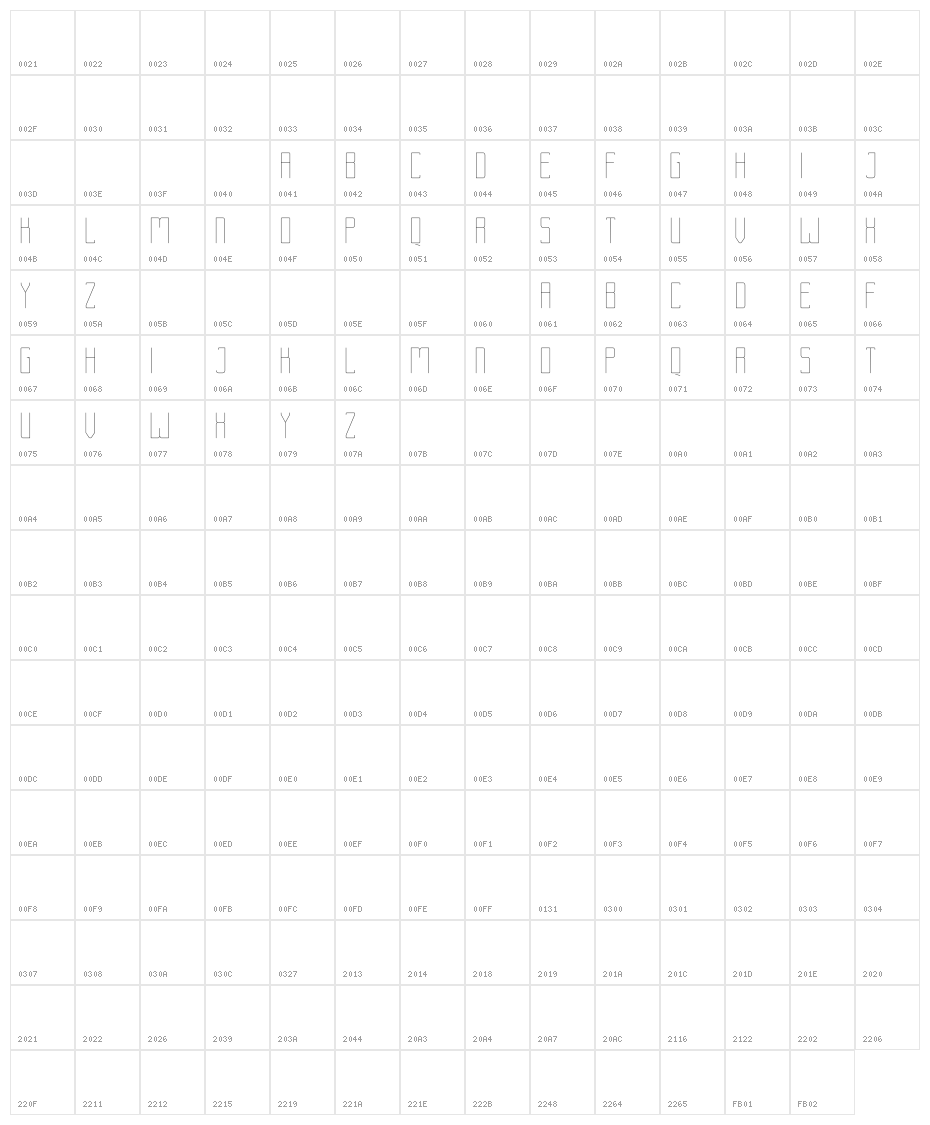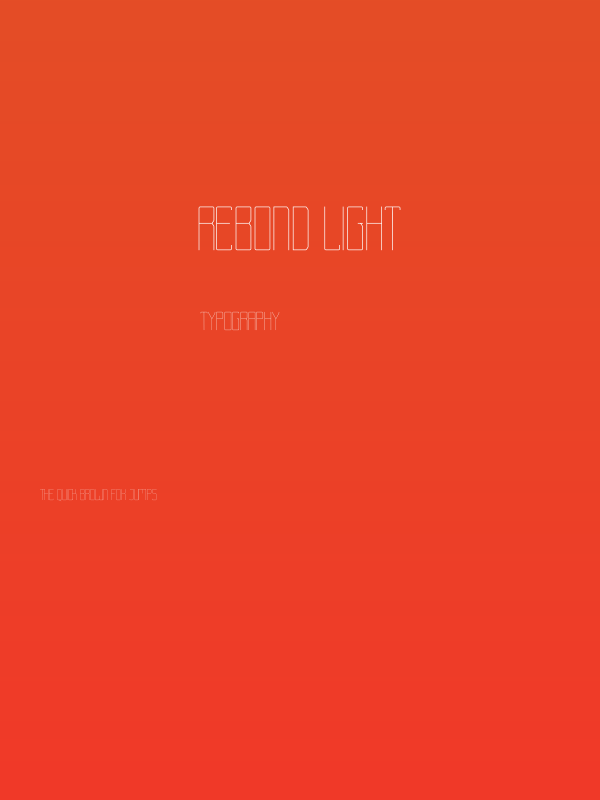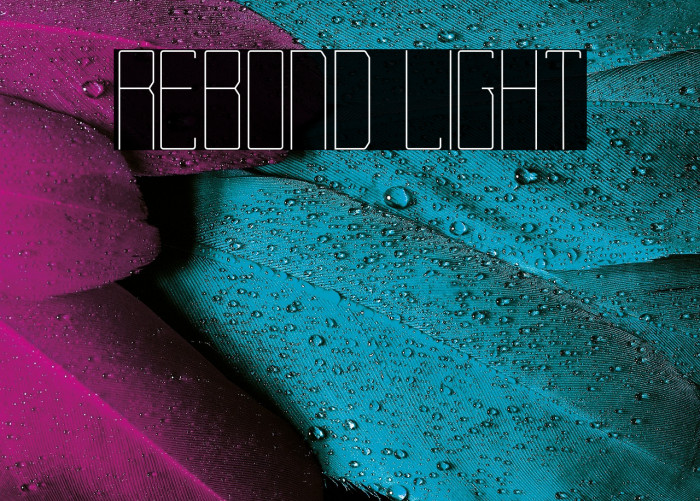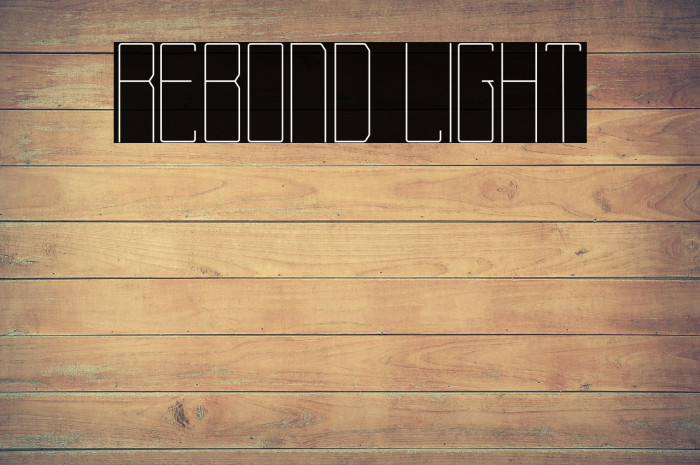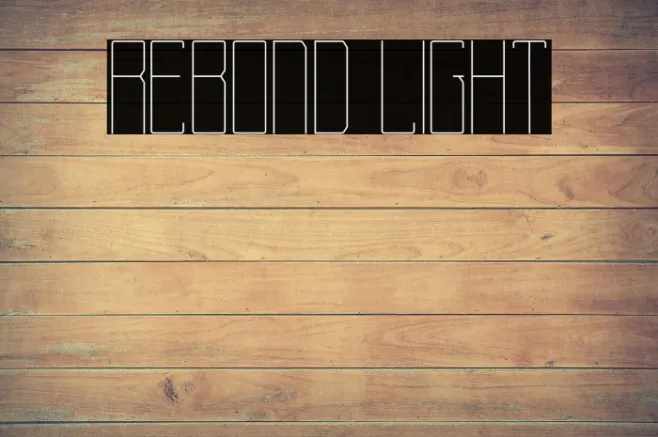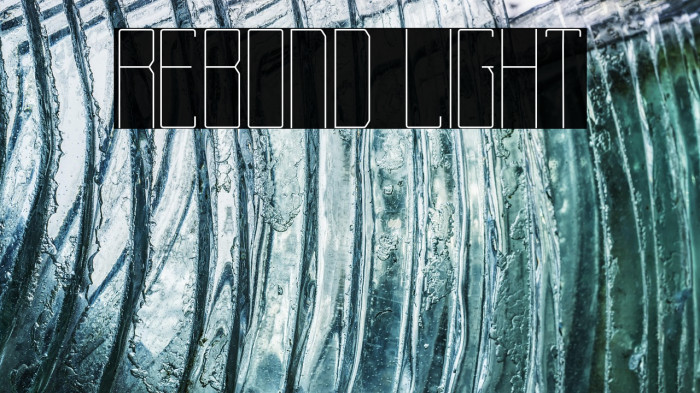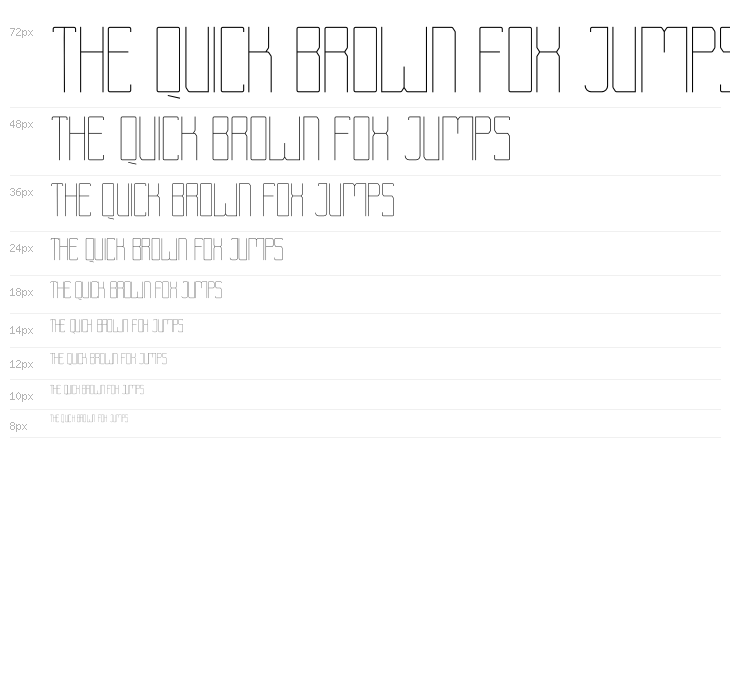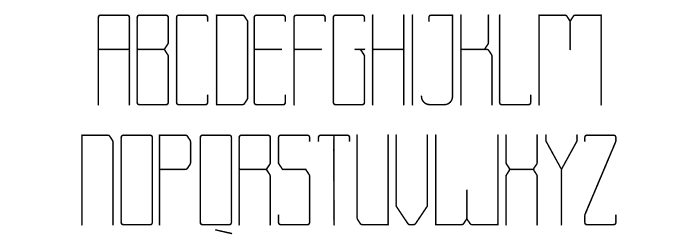
Rebond Light Font
Rebond Light Description
This font features a geometric and minimalist design, characterized by thin, straight lines and sharp angles. The letters are constructed with a consistent stroke width, giving it a clean and modern appearance. The uppercase and lowercase letters share a similar structure, emphasizing uniformity and simplicity. The font's design is highly legible, making it suitable for various applications where clarity is essential. Its unique style is both futuristic and elegant, with a touch of sophistication that can enhance any visual project.
| Use Case | Logos, Headlines, Digital interfaces |
| Proposed Projects | Ideal for modern branding, tech-related projects, minimalist posters, and digital interfaces. |